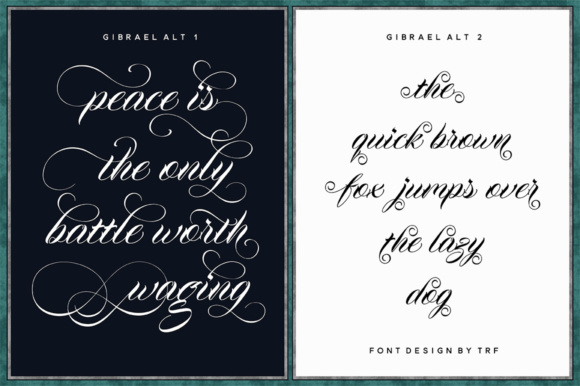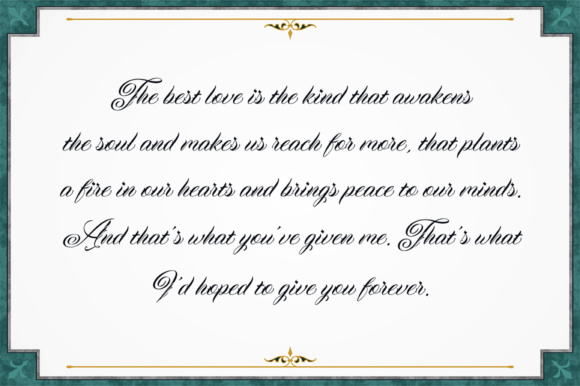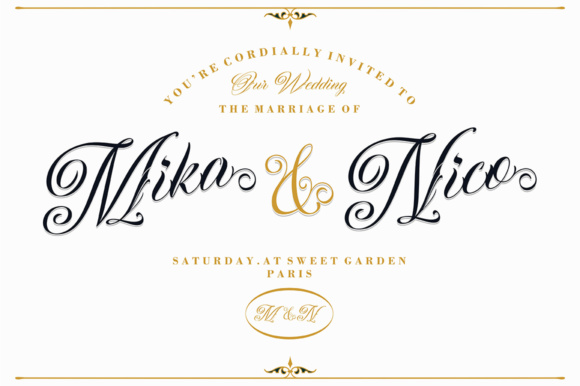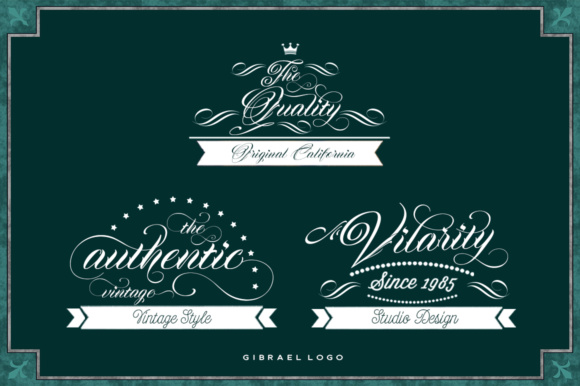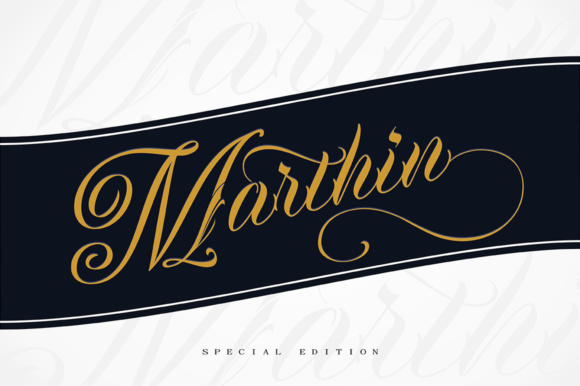
Introduction to Gibrael Font
Have you ever been in the midst of a creative project, pouring your heart and soul into every detail, only to realize that the perfect font is missing? This is where the Gibrael Font comes in – a stunning and super refined calligraphy font that’s perfect for adding a touch of elegance to your designs.
Whether you’re working on a high-end brochure, a wedding invitation, or a social media campaign, the Gibrael Font is a valuable design resource that can elevate your creative project to the next level. With its delicate typeface and tons of glyphs and alternate characters, you’ll have everything you need to create decorative text that’s truly unique.
Key Features of Gibrael Font
- Includes multiple font styles with various weights and sizes
- Supports a wide range of languages and characters
- Perfect for use in logos, branding, and other design applications
Honest Review: Gibrael Font
I recently stumbled upon the Gibrael Font, and I must say, it’s been a game-changer for my design projects. This high-quality font is perfect for creative projects that require a touch of elegance and sophistication.
- High-quality design: The Gibrael Font boasts a clean and sophisticated design that’s sure to elevate any design project.
- Limited character set: The font’s character set is somewhat limited, which may be a concern for designers who need to work with a wide range of languages.
- Not suitable for all design projects: The Gibrael Font’s elegant design may not be suitable for projects that require a more playful or whimsical tone.
Overall, I’m thoroughly impressed with the Gibrael Font. Its high-quality design, free download, and transparent background make it a valuable resource for designers. While it may have some limitations, it’s definitely worth considering for your next creative project.
Tips for Getting the Most Out of Gibrael Font
To get the most out of Gibrael Font, use it with a transparent background to create a clean and minimalist design. You can also use the font in a creative project, such as a logo or branding material, to add a touch of elegance and sophistication.
Gibrael Font is commonly used in design projects that require a high-quality, modern font. Some common use cases include:
- Branding materials
- Brochures